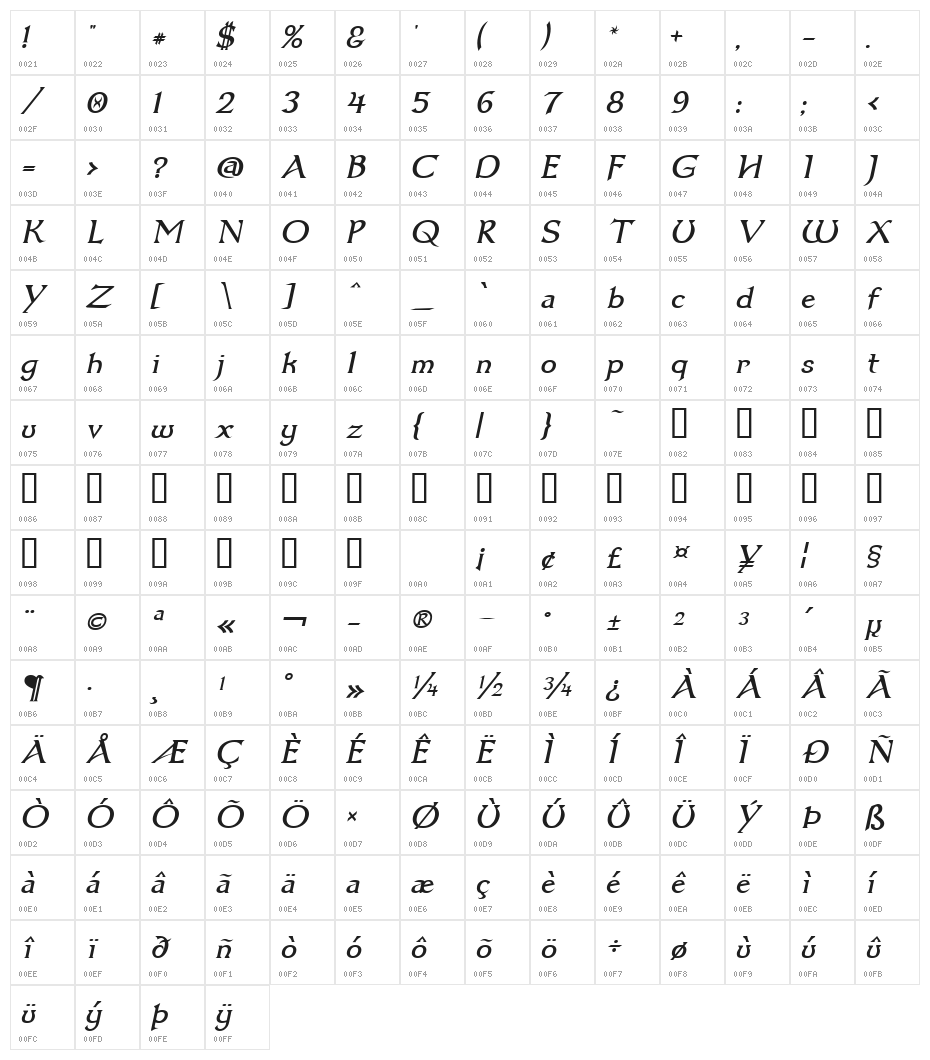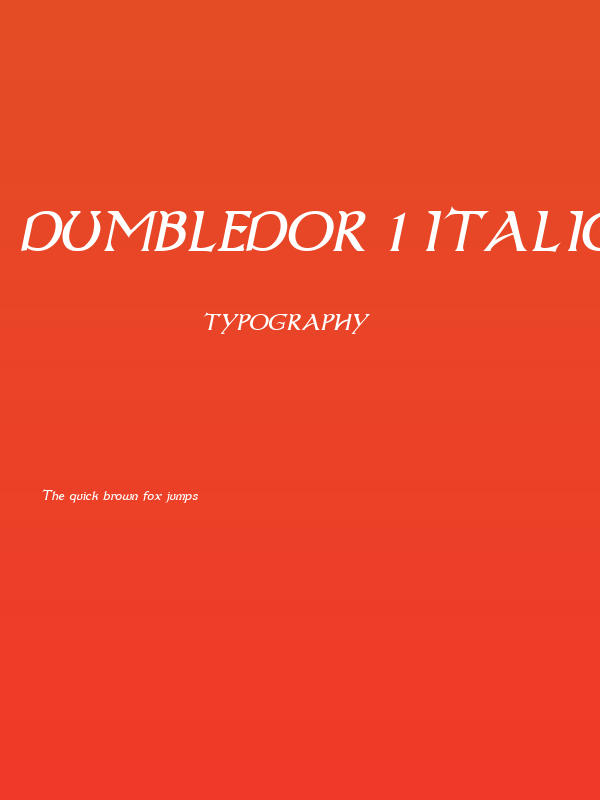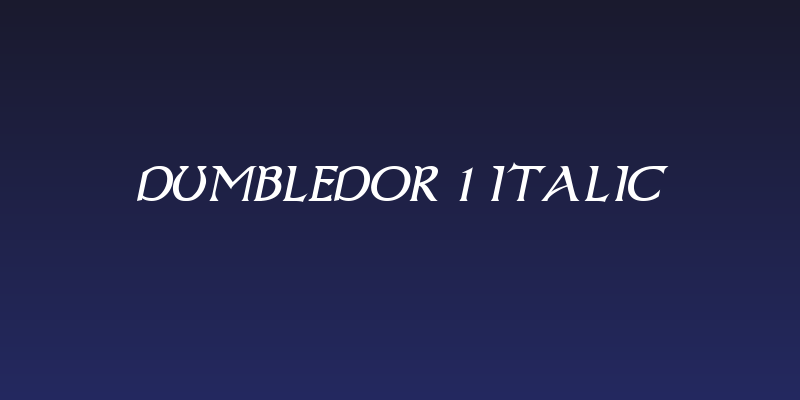
Dumbledor 1 Italic Font
Dumbledor 1 Italic Description
This font features a dynamic and elegant italic style, characterized by its sharp, angular serifs and a slight slant that adds a sense of motion and sophistication. The uppercase letters are bold and commanding, while the lowercase letters maintain a consistent flow with a touch of flair. The numerals are distinct and easy to read, complementing the overall aesthetic. Special characters are well-integrated, maintaining the font's cohesive look. The design is both classic and modern, making it versatile for various applications.
| Use Case | Headlines, Logos, Editorial design |
| Proposed Projects | Ideal for book covers, elegant invitations, branding materials, and editorial design. |